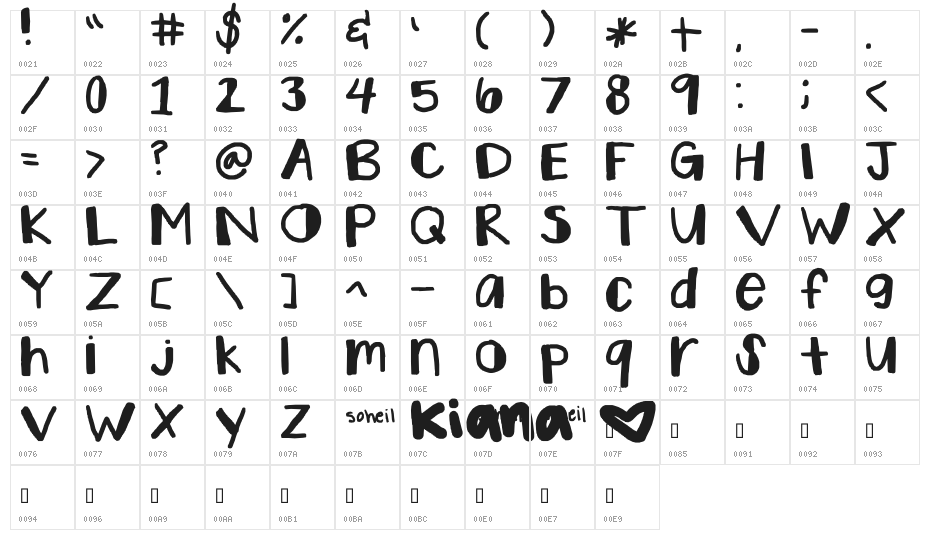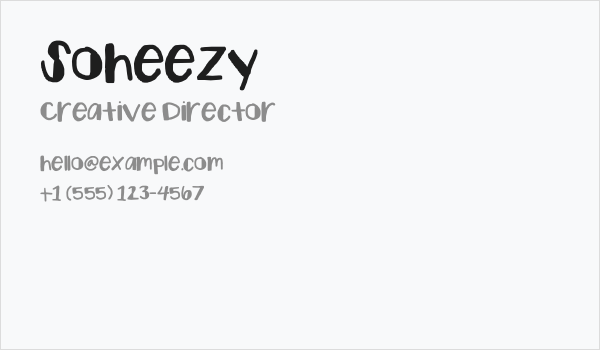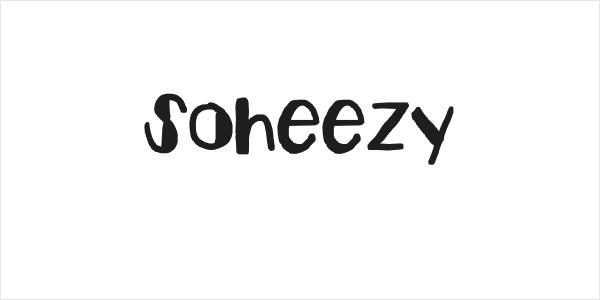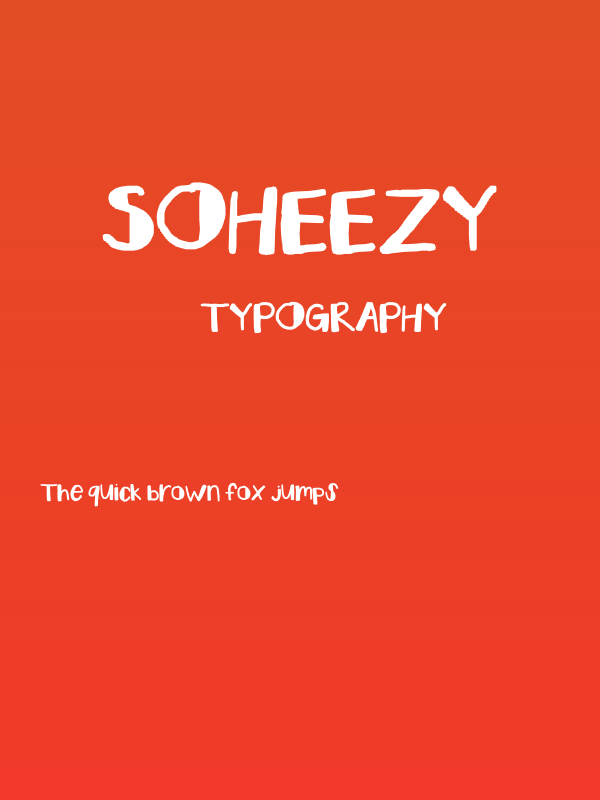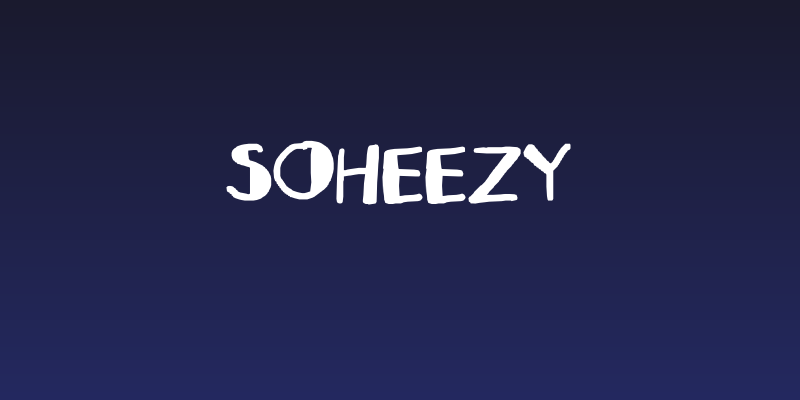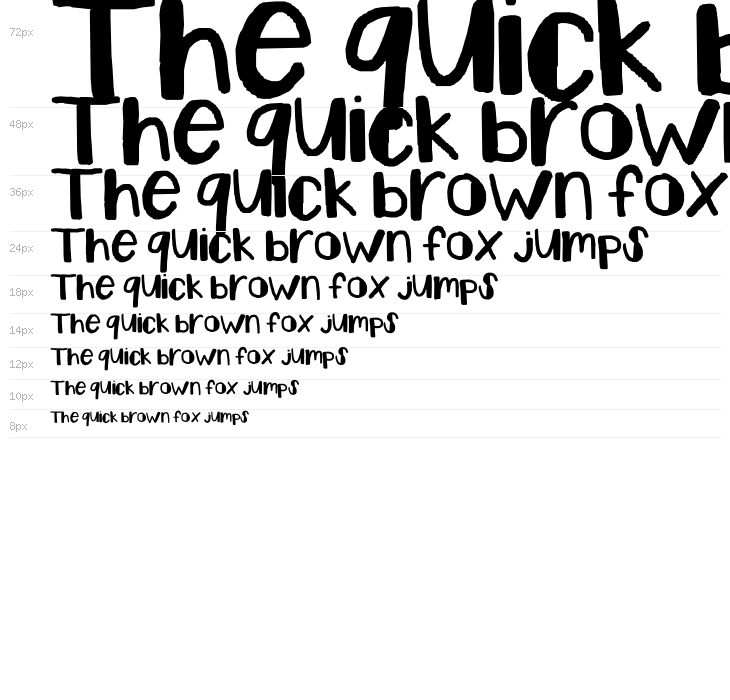
soheezy Font
soheezy Description
This font features a playful and bold handwritten style, characterized by its thick, uneven strokes and casual appearance. The letters have a slightly irregular form, giving them a lively and dynamic feel. The uppercase and lowercase letters maintain a consistent style, with rounded edges and a friendly, approachable look. Numbers and special characters follow the same aesthetic, ensuring a cohesive design throughout. The font's informal nature makes it suitable for creative and fun projects, where a touch of personality is desired.
SOHEEZY UPPERCASE
SOHEEZY LOWERCASE
SOHEEZY OTHER CHARS
| Proposed Projects | Ideal for children's books, playful branding, greeting cards, and informal posters. |